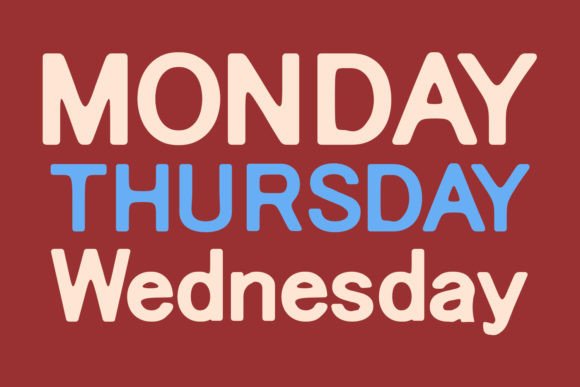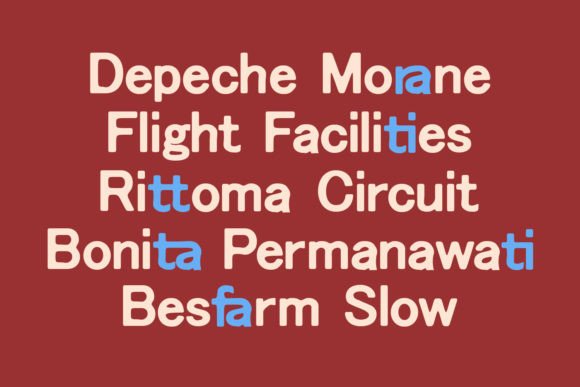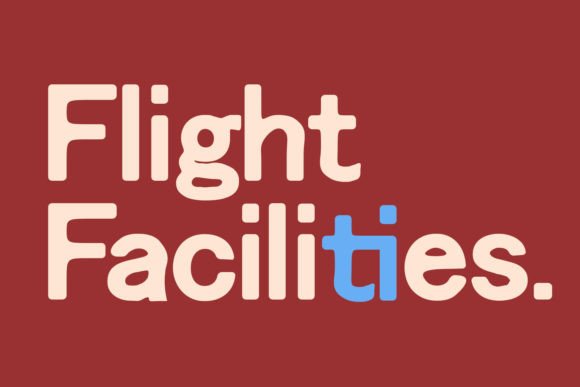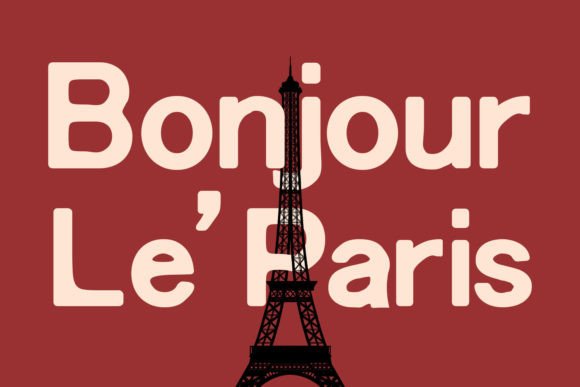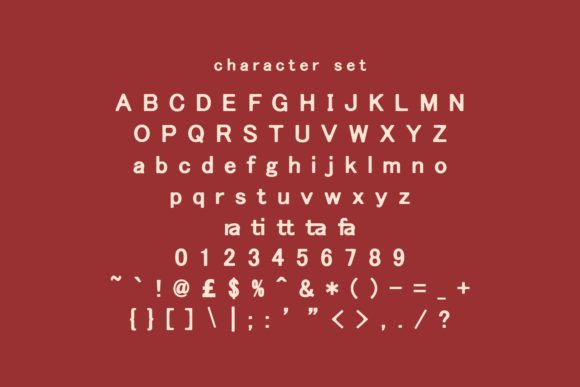
Introduction to Metical Font
As a designer, there’s nothing quite like the rush of inspiration that comes from discovering a new font. It’s that spark that ignites a creative project and sets your imagination ablaze. For me, that spark came when I stumbled upon the Metical Font – a stunning, handmade sans display font that combines a clean, modern look with a playful, hand-drawn feel.
What I love most about Metical Font is its versatility. Whether you’re creating eye-catching headlines, posters, or logos, this font is sure to stand out with a personal touch. And with its transparent background, it’s easy to layer and combine with other design elements to create a high-quality visual identity that truly reflects your brand.
Key Features of Metical Font
- High-quality design resource with a unique, modern aesthetic, perfect for creative projects.
- Includes a range of weights and styles to cater to diverse design needs.
- Perfect for designers and artists looking for a high-quality, versatile font to enhance their creative projects.
Honest Review: Metical Font
As a designer, I’m always on the lookout for high-quality design resources to elevate my creative projects. Recently, I stumbled upon the Metical Font, and I’m excited to share my thoughts on it.
What works well: ✨ The Metical Font offers a sleek and modern aesthetic that’s perfect for a wide range of design projects. The font is highly customizable, allowing you to adjust the size, color, and style to suit your needs. Additionally, the font is available for free download, making it an excellent resource for designers on a budget.
What’s more, the font features a transparent background, which makes it easy to integrate into your designs without any distracting backgrounds. This level of flexibility is a major plus in my book.
Limitations: ⚠️ While the Metical Font is a solid choice for many designers, it may not be suitable for projects that require a more traditional or serif font style. Additionally, the font may not be as comprehensive as some other font families, which could be a limitation for designers working on complex projects.
Overall, I’m impressed with the Metical Font’s versatility and ease of use. It’s a great addition to any designer’s toolkit, and I’d highly recommend it for a wide range of creative projects.
Common Use Cases for Metical Font
Metical Font is ideal for use in brochures, posters, and other marketing materials. Its high-quality design and transparent background make it perfect for creating visually appealing graphics. You can also use it in your personal projects, such as creating a logo or designing a website.
Is the Metical Font suitable for high-quality print materials?
Yes, the Metical Font is designed to be high-quality and suitable for use in print materials. It’s a well-crafted font with smooth lines and clear typography, making it perfect for use in business cards, brochures, and other print materials where readability and professionalism are key. You can also use it for digital graphics and web design, where its high-quality design will shine through.